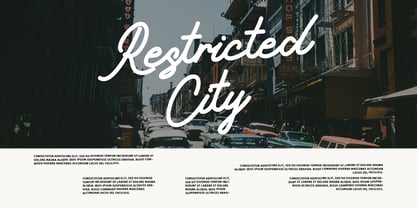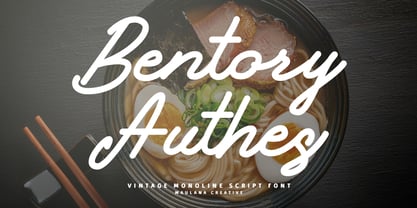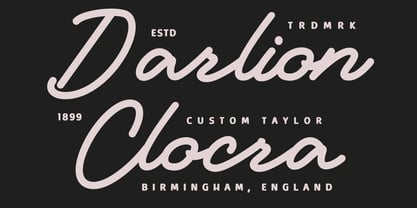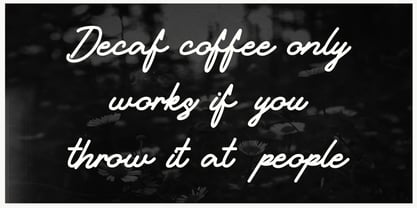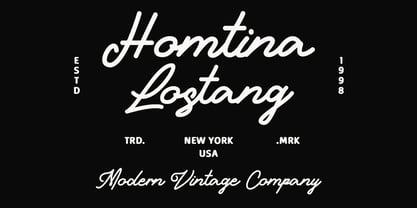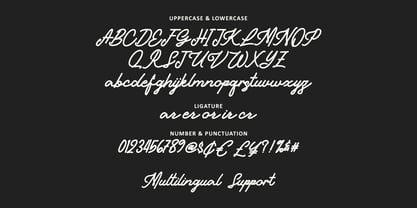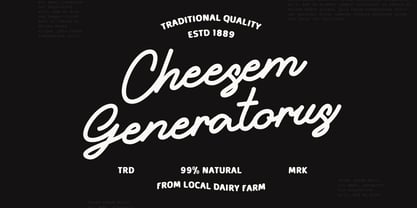
MC Bentory Authes
by Maulana Creative
The MC Bentory Authes Font Family was designed by Gilang Maulana and published by Maulana Creative. MC Bentory Authes contains 1 styles. More about this family
Bentory Authes is a stylish monoline script font that perfectly blends vintage aesthetics with a modern, clean execution. Its smooth, flowing strokes and consistent line weight capture the nostalgic feel of classic 1950s signage and retro branding. Designed by Maulana Creative, this font features elegant ligatures and a full set of uppercase, lowercase, and multilingual characters. It is an ideal choice for logos, design, cafe branding, and product packaging where a touch of authentic, handcrafted charm is required.
Designers: Gilang Maulana
Foundry: Maulana Creative